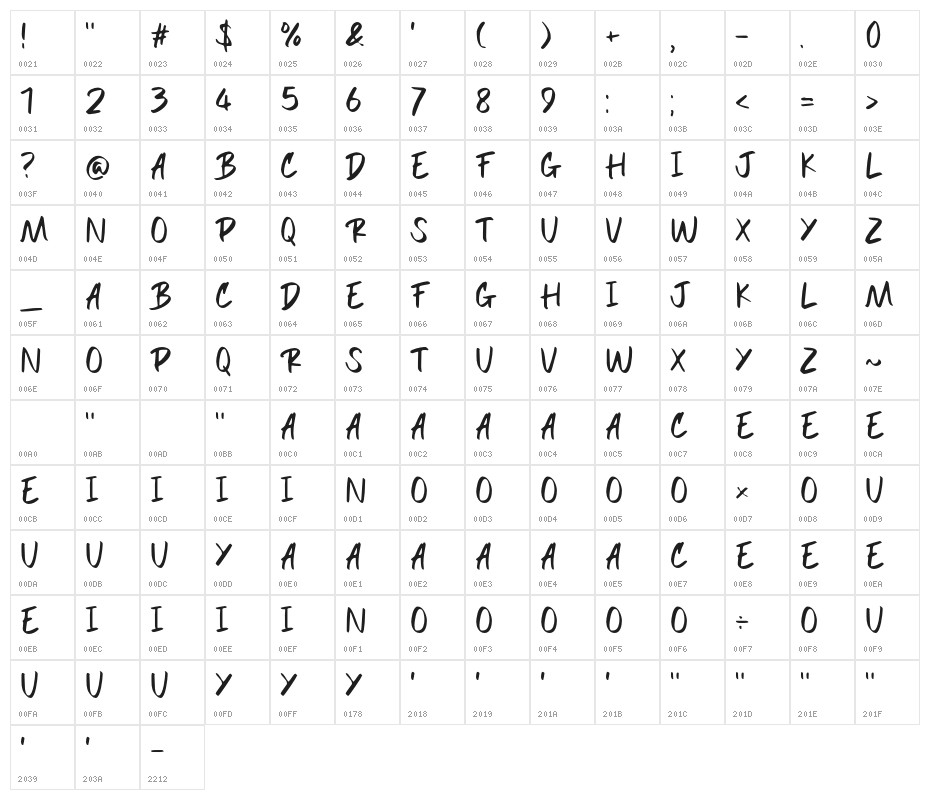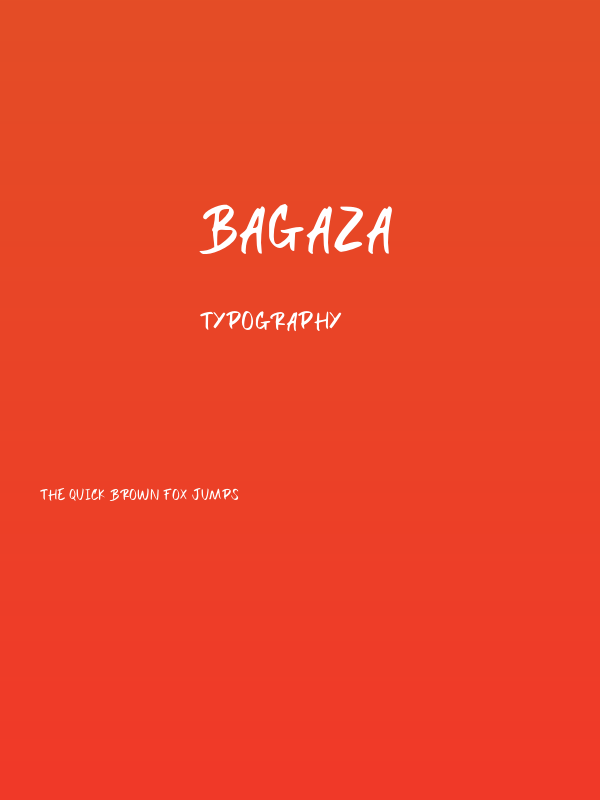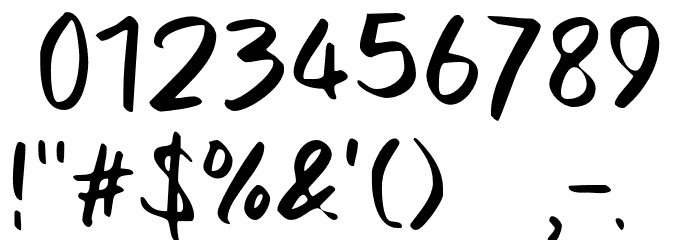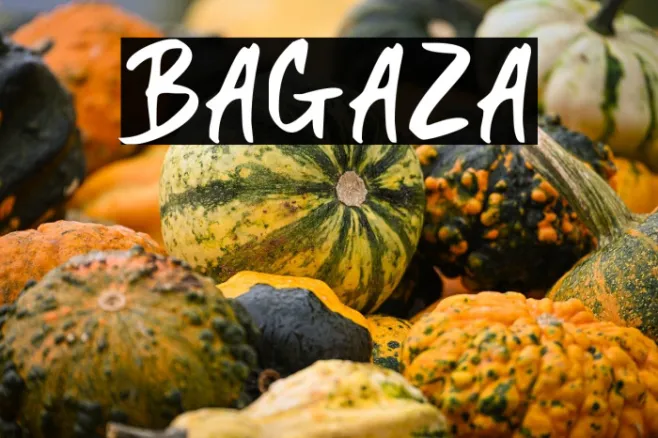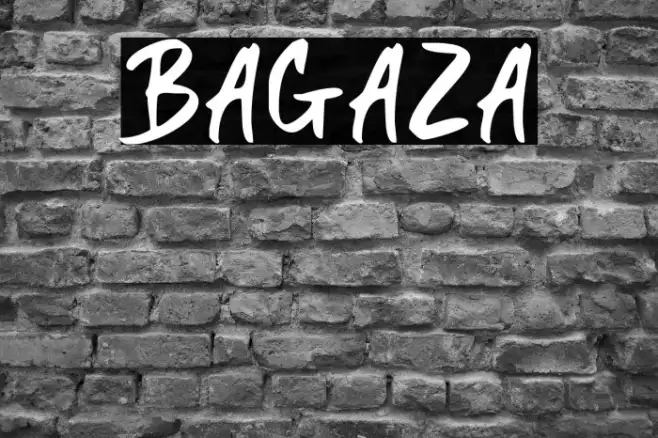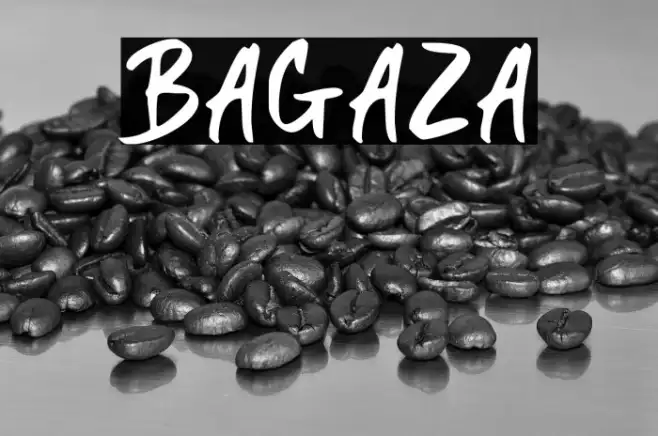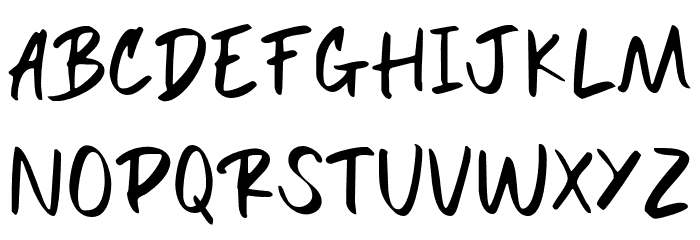
BAGAZA Font
BAGAZA Description
This font exudes a lively and dynamic handwritten style, characterized by its fluid and slightly irregular strokes. The letters have a casual yet sophisticated appearance, with a natural flow that mimics real handwriting. The uppercase and lowercase letters maintain a consistent style, offering a harmonious blend of curves and angles. The numerals and special characters are crafted with the same attention to detail, ensuring a cohesive look across all elements. This font is perfect for projects that require a personal touch, adding warmth and character to any design.
| Overall Style | Casual, Personal |
| Use Case | Logos, Invitations, Personal Branding |
| Proposed Projects | Ideal for greeting cards, invitations, personal branding, and creative projects that require a personal touch. |